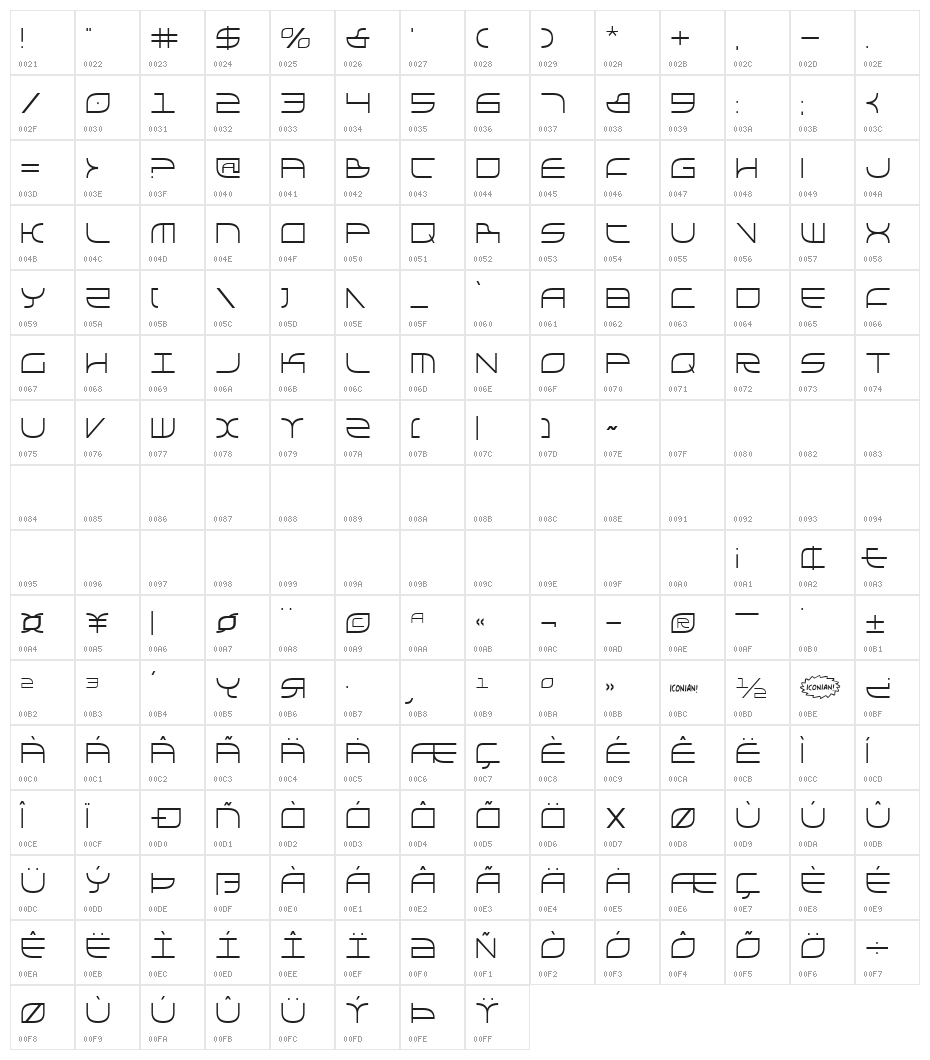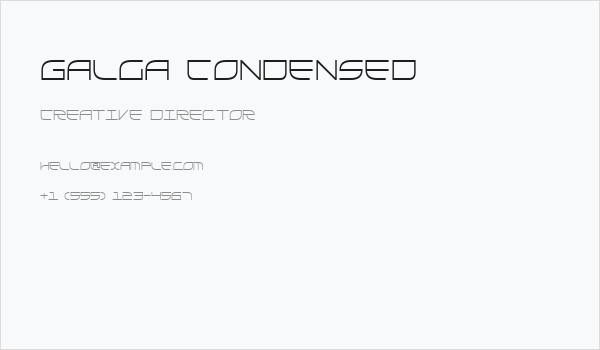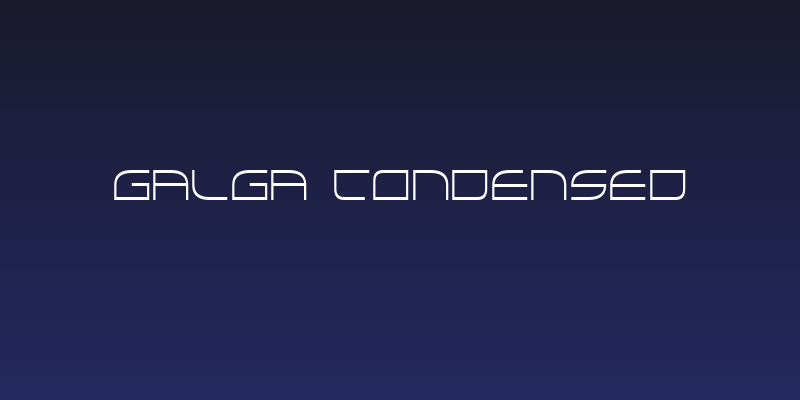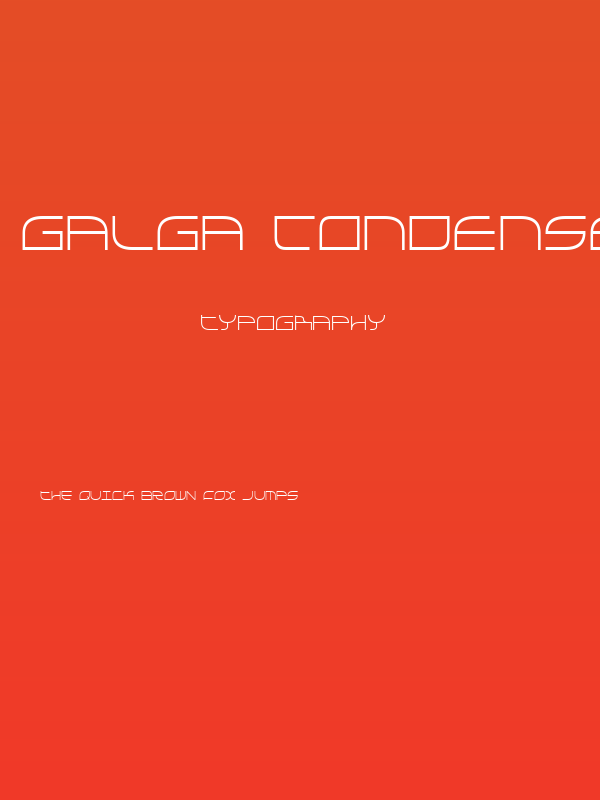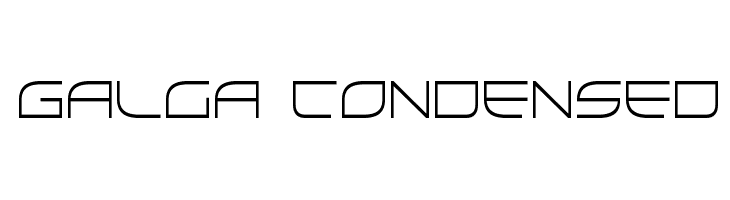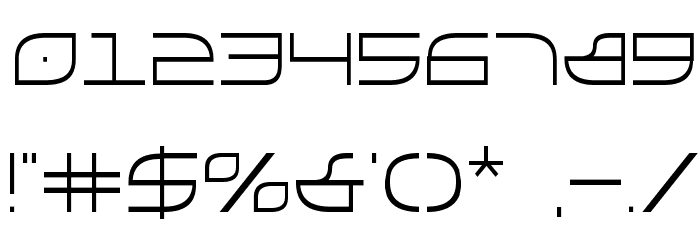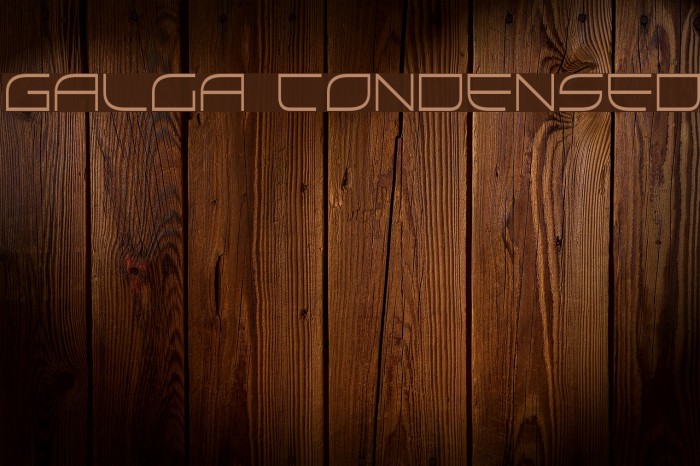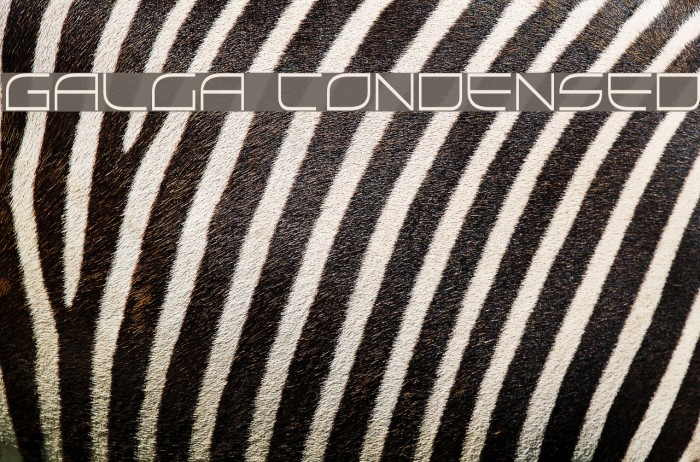
Galga Condensed Font
Galga Condensed Description
This font features a modern, geometric design with a condensed structure. The characters are composed of clean, straight lines and sharp angles, giving it a futuristic and minimalist appearance. The uppercase and lowercase letters maintain a consistent height, contributing to its uniformity. The numerals and special characters follow the same design principles, ensuring a cohesive look across all glyphs. The overall style is sleek and contemporary, making it suitable for projects that require a cutting-edge aesthetic.
| Use Case | Headlines, Logos, Digital interfaces |
| Proposed Projects | Ideal for tech branding, modern advertising, digital interfaces, and futuristic design projects. |